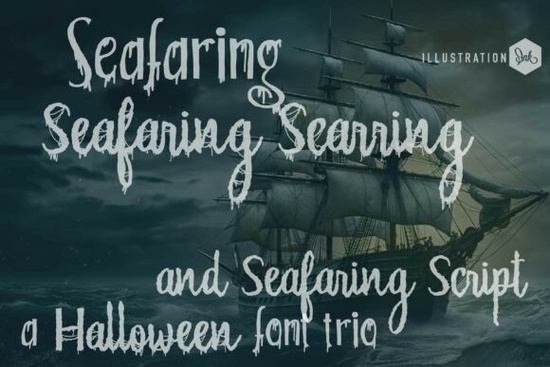
If you're working on a Halloween project, pirate-themed design, or anything that needs a hauntingly nautical vibe, the Seafaring Scarring Trio Font is worth a closer look. This hand-crafted font collection brings together three distinct but perfectly matched styles each dripping with eerie maritime energy. Whether you're designing spooky party invites, haunted merch, or dark fantasy book covers, this trio gives you the tools to create cohesive, atmospheric typography without mixing unrelated fonts.
The set includes a weathered serif, a dramatic script with ominous drips, and a scarier, more distorted version of that same script. Altogether, you get nine font files (three weights or variants per style), offering flexibility while maintaining visual harmony. The rough edges, saltwater-worn textures, and ghostly drips make it feel like your text just washed ashore from a cursed galleon.
What kinds of projects work best with this font?
This font shines in any context where mood matters as much as message. Think:
- Halloween event posters or digital invitations
- Pirate birthday party decor (think treasure maps, signage, favor tags)
- Print-on-demand apparel with spooky or oceanic themes
- Book covers for gothic sea tales or horror novels
- Social media graphics for seasonal campaigns or themed shops
Because all three styles are designed to complement each other, you can mix headlines and body text or even layer them without clashing. That’s especially useful if you’re creating multi-element designs like packaging, banners, or layered SVGs for cutting machines.
How does it compare to other display fonts?
Unlike cleaner display fonts like Preppy Sweet or airy choices such as Sugar Cloud, Seafaring leans into grit and decay. It’s not meant for minimalist branding or cheerful greeting cards it’s built for storytelling with shadows. If you’ve used grunge-style fonts like College Jersey Black, you’ll appreciate how Seafaring adds narrative depth rather than just texture.
And while fonts like Slime Drip or City Spray also feature drippy effects, Seafaring’s trio structure sets it apart. Most drip fonts are single-style; here, you get coordinated serif and script families that share the same haunted aesthetic, making professional-looking layouts far easier to achieve.
Is it easy to use for beginners?
That said, because of its detailed textures, it works best at larger sizes (think headlines, logos, or short phrases). Tiny text may lose legibility, so avoid using it for fine print or long paragraphs.
Tips for getting the most out of this font trio
- Pair with simple backgrounds. Let the font’s texture stand out by using solid colors or subtle paper textures not busy patterns.
- Use contrasting weights for hierarchy. Try the bold serif for headlines and the lighter script for subheadings or quotes.
- Add faux shadows or glows sparingly. Since the font already implies depth, extra effects can overwhelm unless used minimally.
- Test readability early. Print a sample or view it on mobile before finalizing your design.
Whether you’re a small business owner crafting seasonal products, a hobbyist making custom Halloween shirts, or a designer building a moody brand identity, the Seafaring Scarring Trio Font offers both personality and practicality. It’s not just decorative it helps tell a story with every letter.